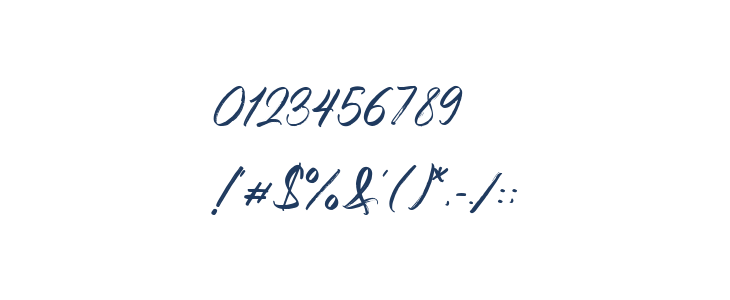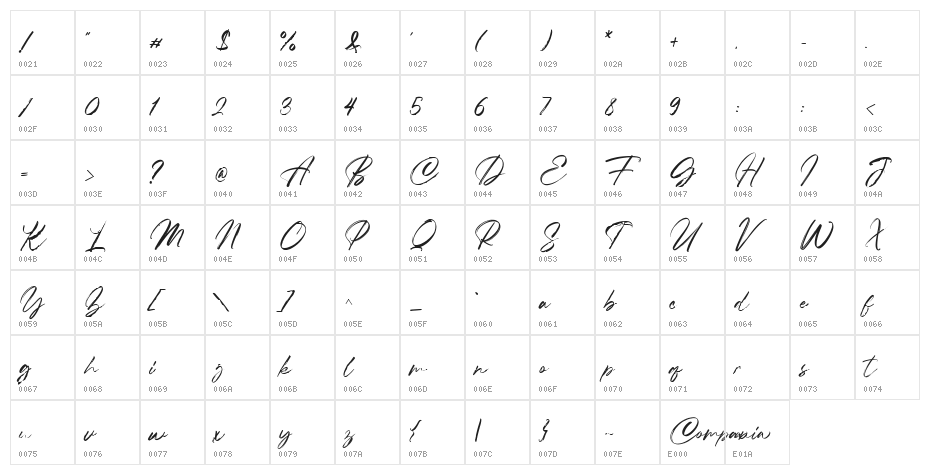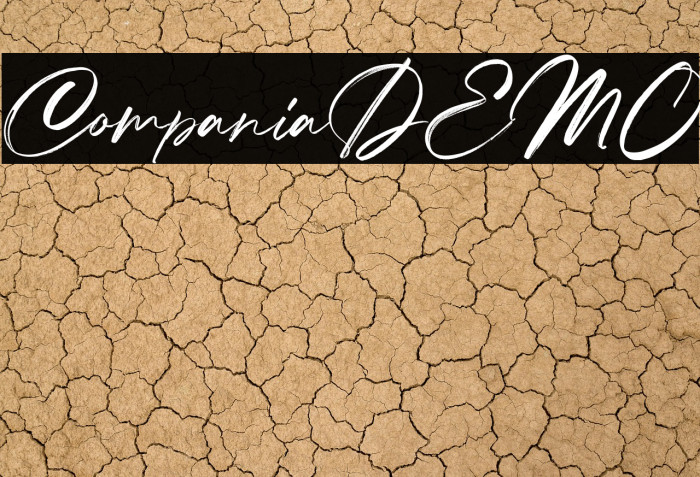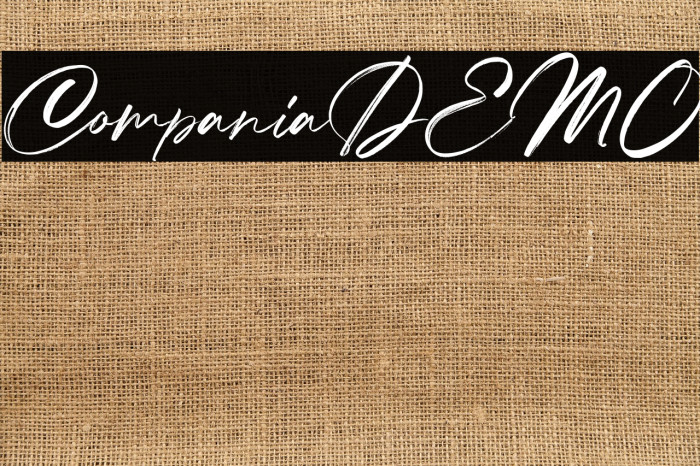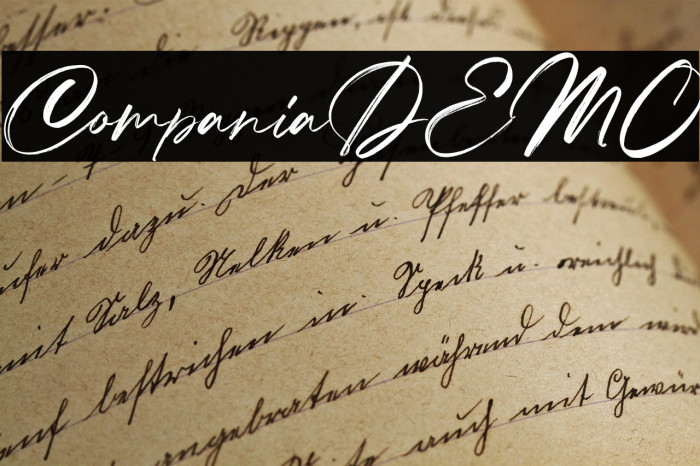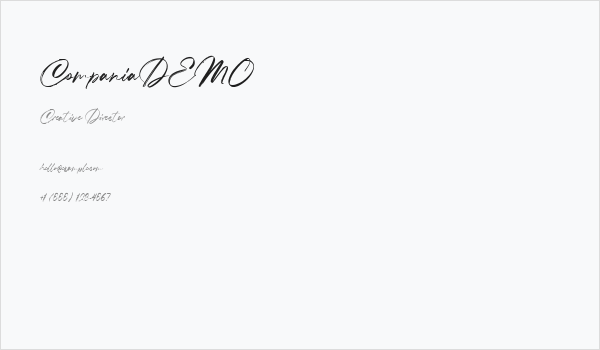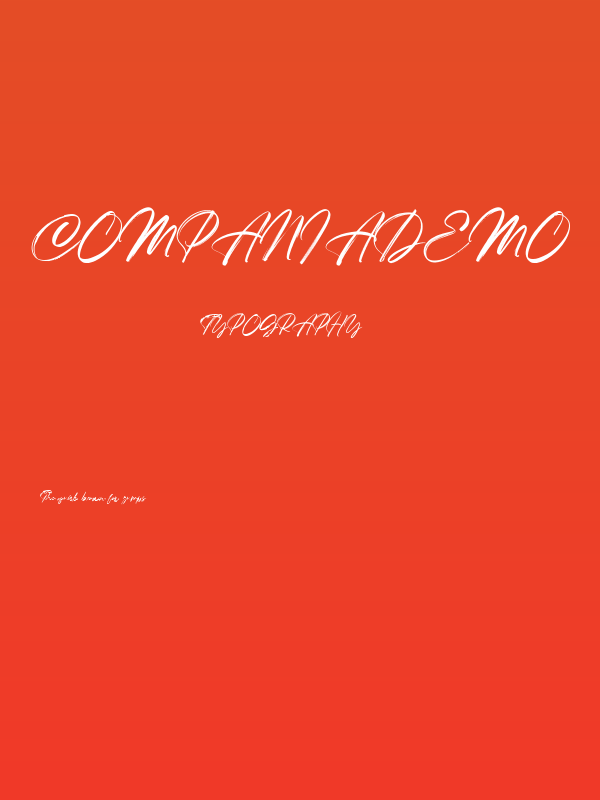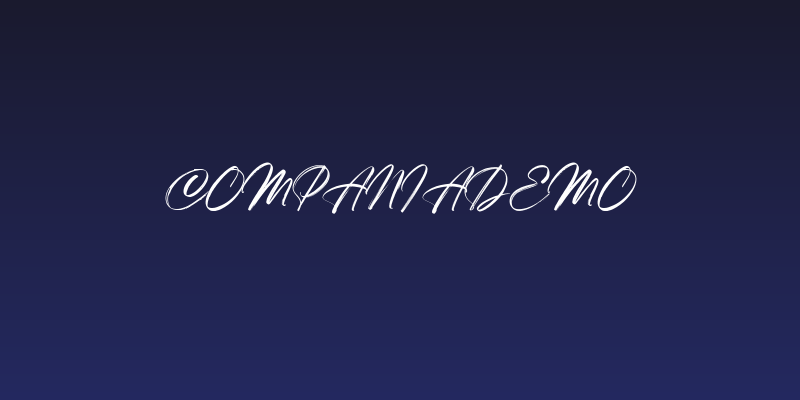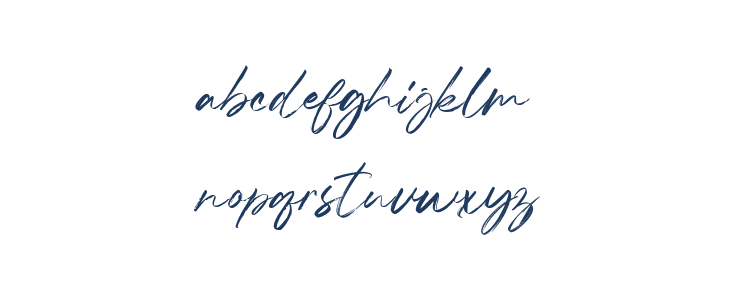
CompaniaDEMO Font
CompaniaDEMO Description
This font features an elegant and flowing script style, characterized by its smooth, cursive strokes and a dynamic sense of movement. The letters are interconnected, creating a seamless and fluid appearance. The uppercase letters are bold and expressive, while the lowercase letters maintain a graceful and delicate form. The numerals and special characters follow the same fluid design, ensuring consistency throughout. This font exudes a sense of sophistication and artistic flair, making it ideal for projects that require a touch of elegance and creativity.
| Overall Style | Elegant, Artistic |
| Use Case | Logos, Invitations, Branding |
| Proposed Projects | Ideal for wedding invitations, branding, logo design, and elegant stationery. |